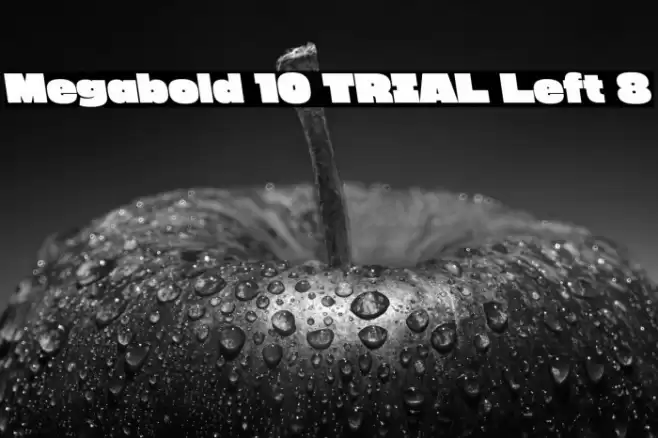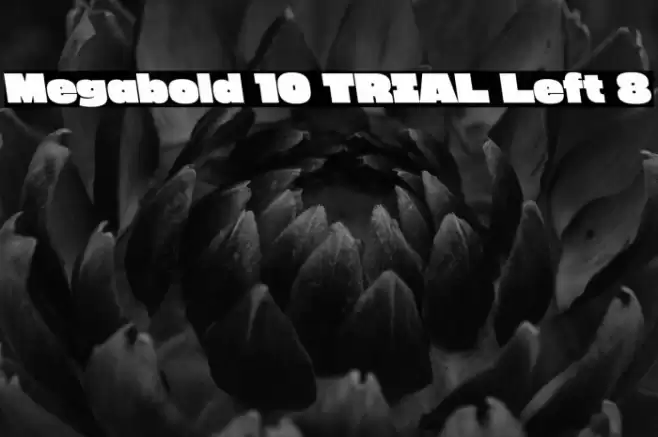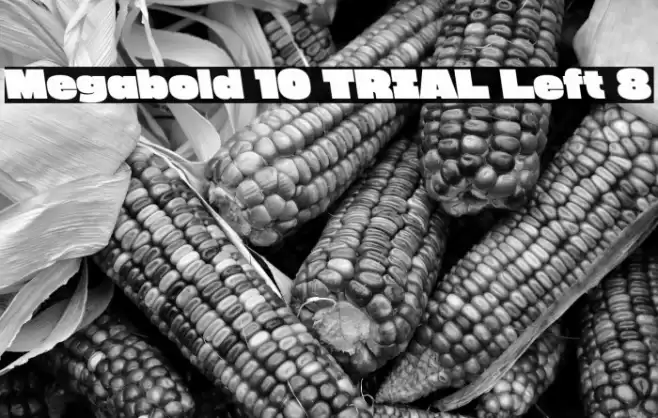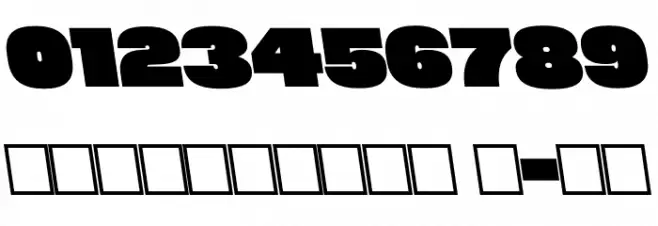
Megabold 1.0 TRIAL Left 8 Font
Megabold 1.0 TRIAL Left 8 Description
This font features a bold, impactful design with thick, uniform strokes that create a strong visual presence. The characters are wide and blocky, giving them a modern and assertive appearance. The uppercase and lowercase letters maintain a consistent style, with rounded edges that soften the overall look. Numbers and special characters are equally bold, ensuring readability and emphasis. This font is ideal for projects that require a strong, attention-grabbing typeface.
A bold, modern font with thick, blocky characters and rounded edges from Uncategorized fonts.
- Font: Megabold 1.0 TRIAL Left 8
- Proposed Projects: Ideal for headlines, posters, branding, and advertising where a strong visual impact is needed.
- Width: Expanded